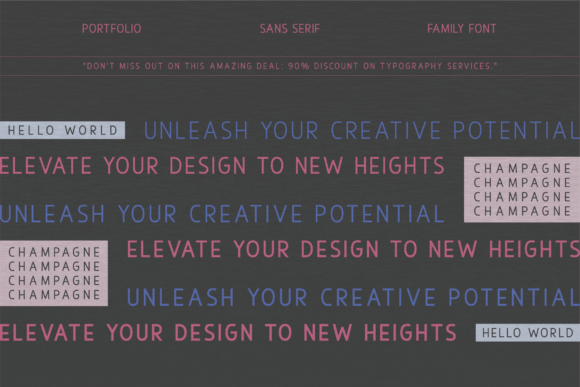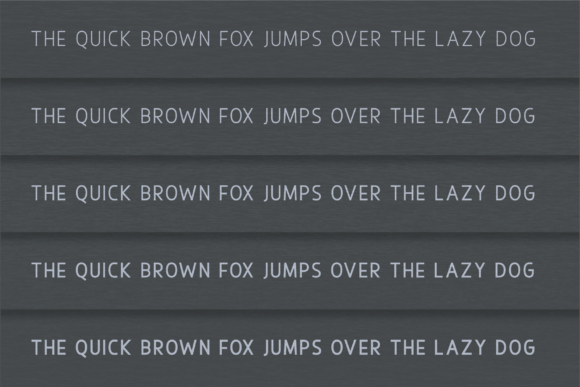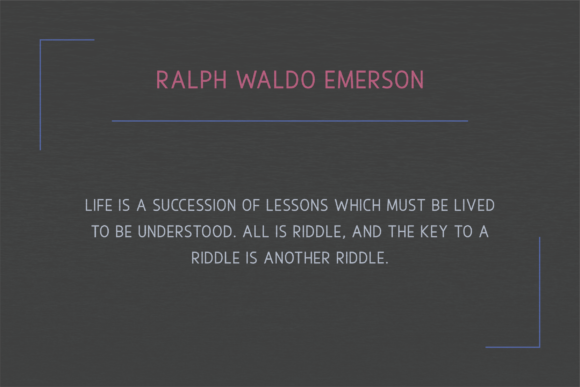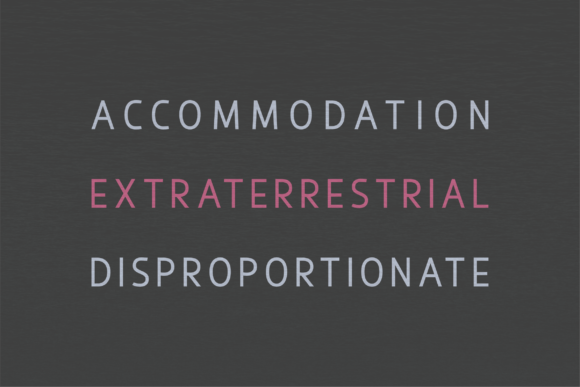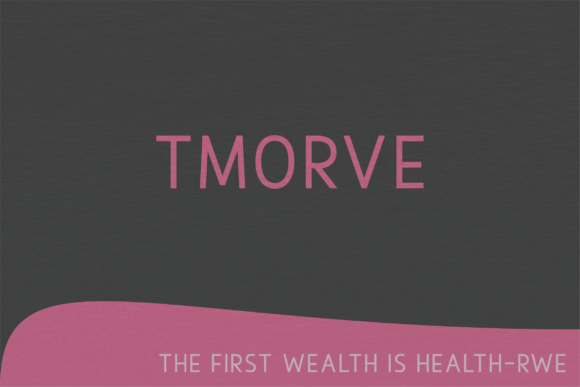
Unveiling the Elegance of Champagne Font: A Designer’s Delight
I’ll never forget the moment I stumbled upon the perfect font for a client’s luxury brand project. I had been scouring through countless font libraries, but nothing seemed to capture the essence of sophistication and elegance that I was looking for. That was until I discovered the Champagne Font family. With its sleek, modern design and effortless charm, it was love at first sight! In this article, I’ll share my experience with this stunning font family and explore its features, uses, and alternatives.
A Closer Look at Champagne Font
The Champagne Font family is a sublime collection of five unique weights, each exuding elegance and pared-down simplicity. This sans serif font is a masterclass in minimalistic luxury, blending modern style with enduring charm. Whether you’re working on avant-garde logos, contemporary film posters, or any other design project, the Champagne Font is a flawless choice.
What I Love About Champagne Font
- ✨ Elegant and sophisticated design: The Champagne Font family boasts a sleek, modern aesthetic that’s perfect for luxury brands and high-end designs.
- ✅ Versatile weights: With five unique weights to choose from, you can use the Champagne Font for a wide range of projects, from bold headlines to subtle body text.
- 💡 Effortless charm: The font’s subtle nuances and clever design make it easy to use and pair with other fonts.
While the Champagne Font family is an exceptional choice, there are a few things to keep in mind:
- 🤔 Limited glyphs: As with any font, the Champagne Font family has a limited set of glyphs. However, the included glyphs are expertly crafted and cover most design needs.
- ⚠️ Not suitable for body text: While the font is elegant and readable, it’s best suited for headlines, titles, and short paragraphs. For longer body text, consider pairing it with a more traditional serif font.
The Story Behind Champagne Font
The Champagne Font family was designed with the goal of creating a modern, elegant sans serif font that exudes sophistication and luxury. Inspired by the world of high-end design, the font’s creator aimed to craft a font that would be both versatile and refined. The result is a font family that’s perfect for designers, crafters, and creative hobbyists looking to add a touch of elegance to their projects.
| Font Name | Champagne Font |
| Author | Nan Design |
| Is the Champagne Font suitable for body text? | While the font is elegant and readable, it’s best suited for headlines, titles, and short paragraphs. |